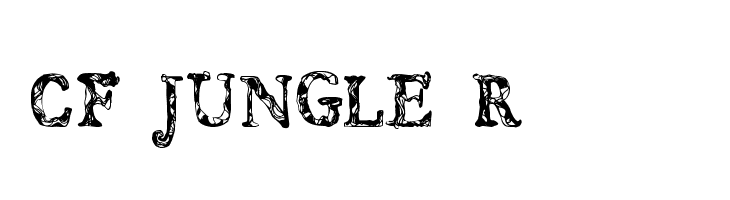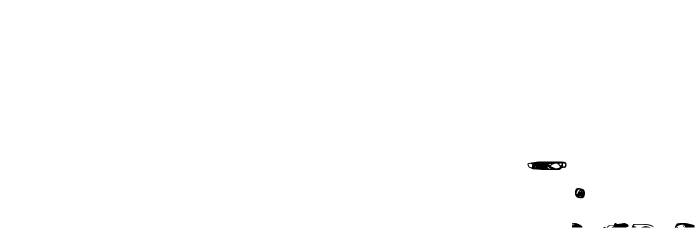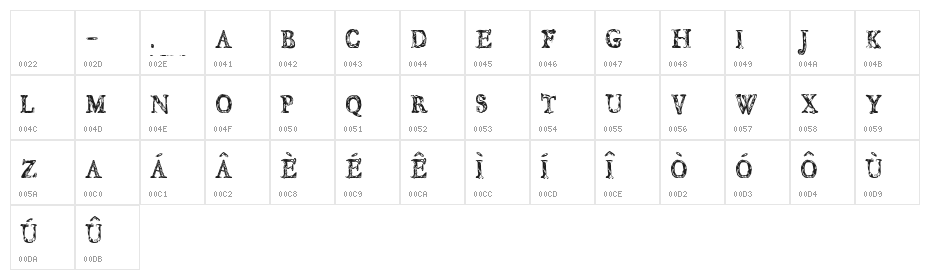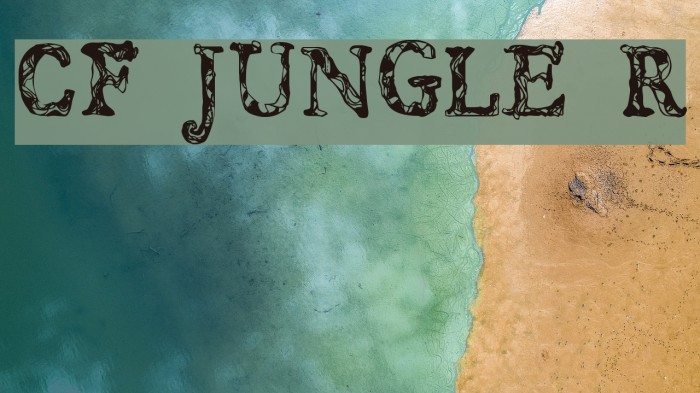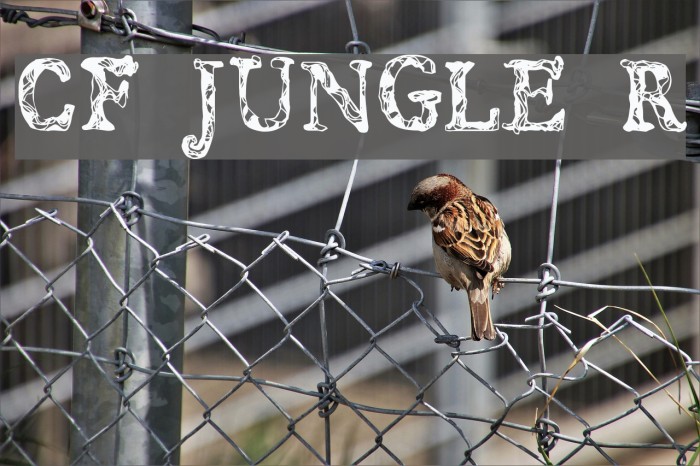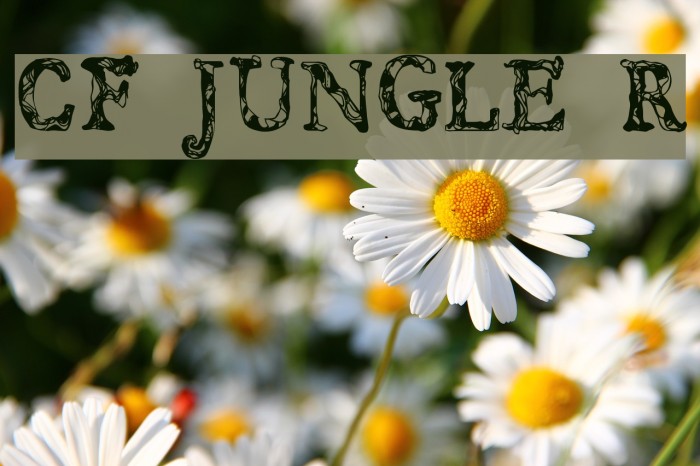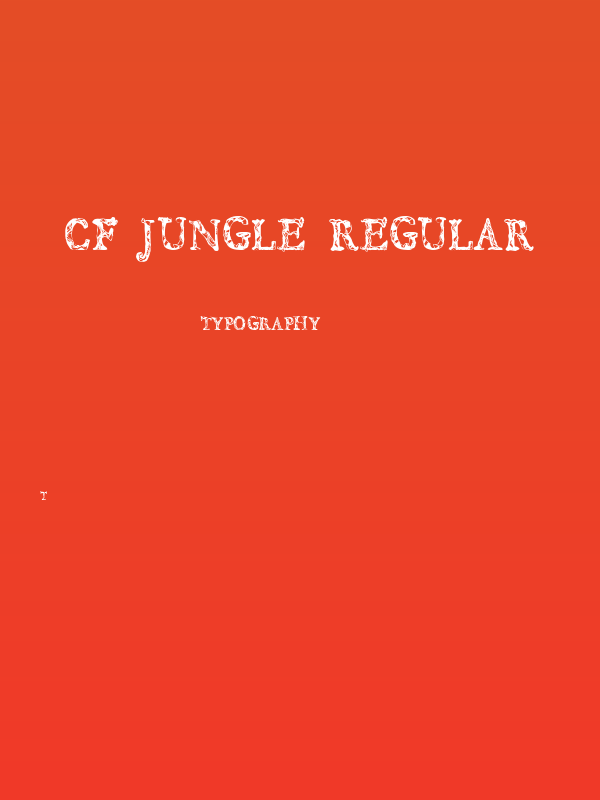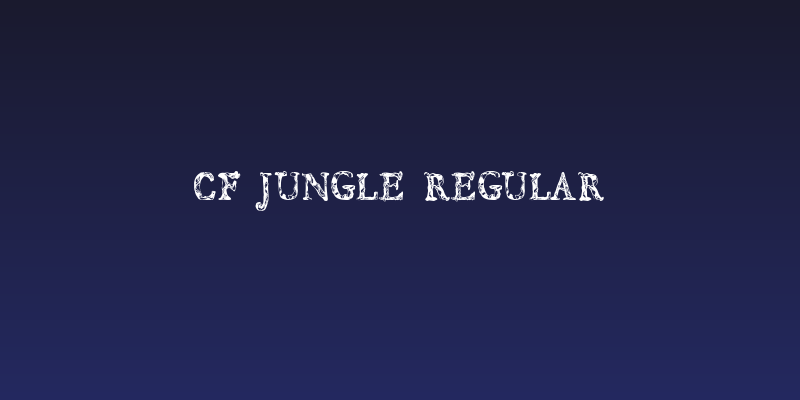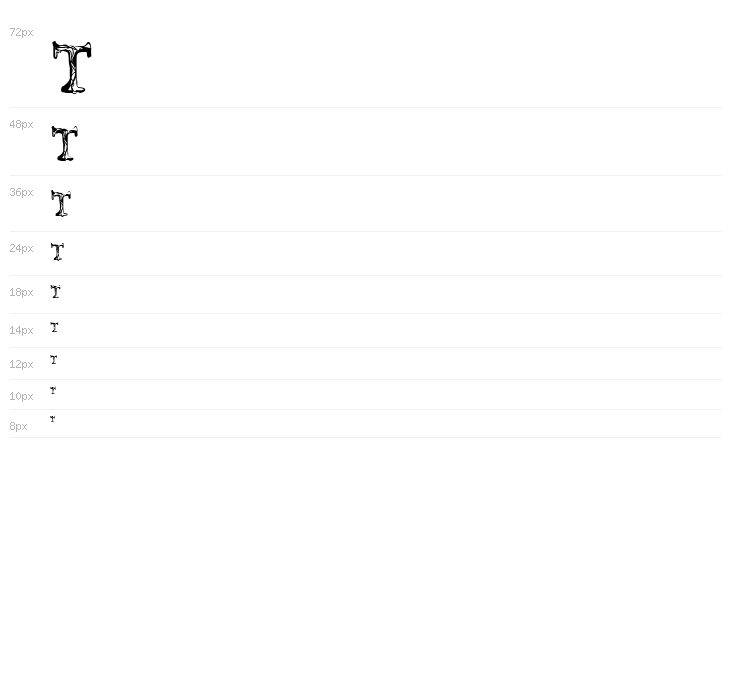
CF JUNGLE Regular Font
CF JUNGLE Regular Description
This font features an intricate and decorative design, reminiscent of jungle foliage intertwined with the letterforms. Each character is adorned with leaf-like patterns, creating a sense of wildness and nature. The uppercase letters are bold and commanding, with a unique texture that gives them a hand-crafted appearance. The font's playful and organic style makes it stand out, ideal for projects that require a touch of nature or adventure. Its detailed design may not be suitable for small text but excels in larger formats where the intricate details can be appreciated.
| Proposed Projects | Ideal for eco-friendly branding, adventure-themed posters, or nature-related event invitations. |